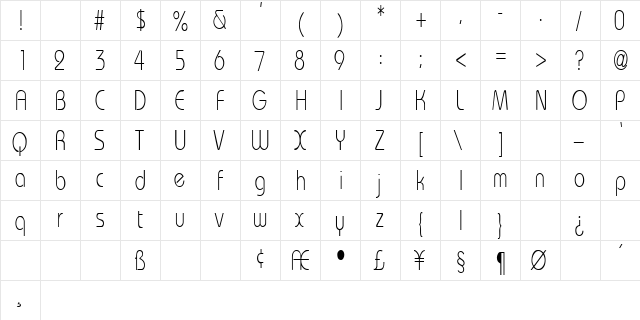
WashingtonMetroCondensed Regular
Design Context for WashingtonMetroCondensed Typeface
WashingtonMetroCondensed takes a measured approach to typography — its balanced proportions and neutral character make it a reliable workhorse for both digital and print work. The condensed width makes it efficient for tight spaces without sacrificing legibility.